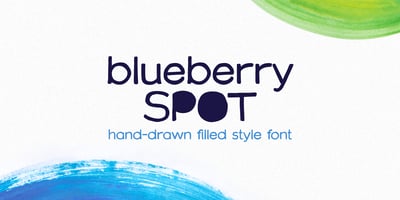
Blueberry Spot
Blueberry Spot font
Blueberry Spot Font Family was designed by Roman Korolev and published by Kaer. Blueberry Spot contains 2 styles and family package options. I’m glad to present my new hand-drawn typeface Blueberry Spot. The clearances in some letters are filled as if somebody put a blueberry blot in them. Also, I created the second style of this font. If you don’t want blots use a clear style. This font is perfect for making your project look pleasantly scruffy, handmade. Use it for nice identity, funny craft package, blog posts, holidays poster, etc.What’s included? Regular and Clean styles Uppercase and lowercase Multilingual support Numbers Symbols Punctuation I hope you enjoy this font. Follow my shop to receive updates of products and the very hottest news! If you have any question or issue, please contact me: kaer.pro@gmail.com Please request to add additional characters and glyphs if you need! Thank you!